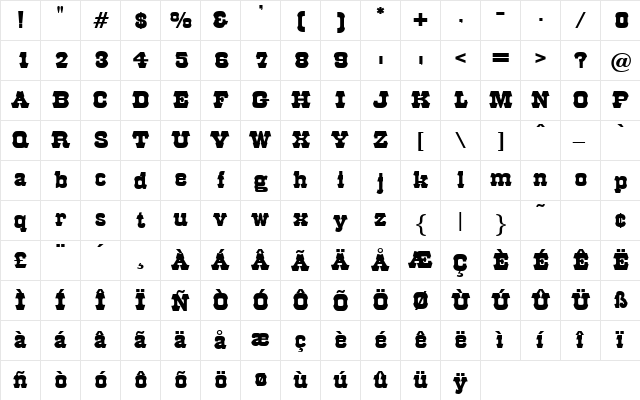
Rodding Regular Font Preview
Rodding Regular
Design Context for Rodding Typeface
Rodding takes a measured approach to typography — its balanced proportions and neutral character make it a reliable workhorse for both digital and print work.